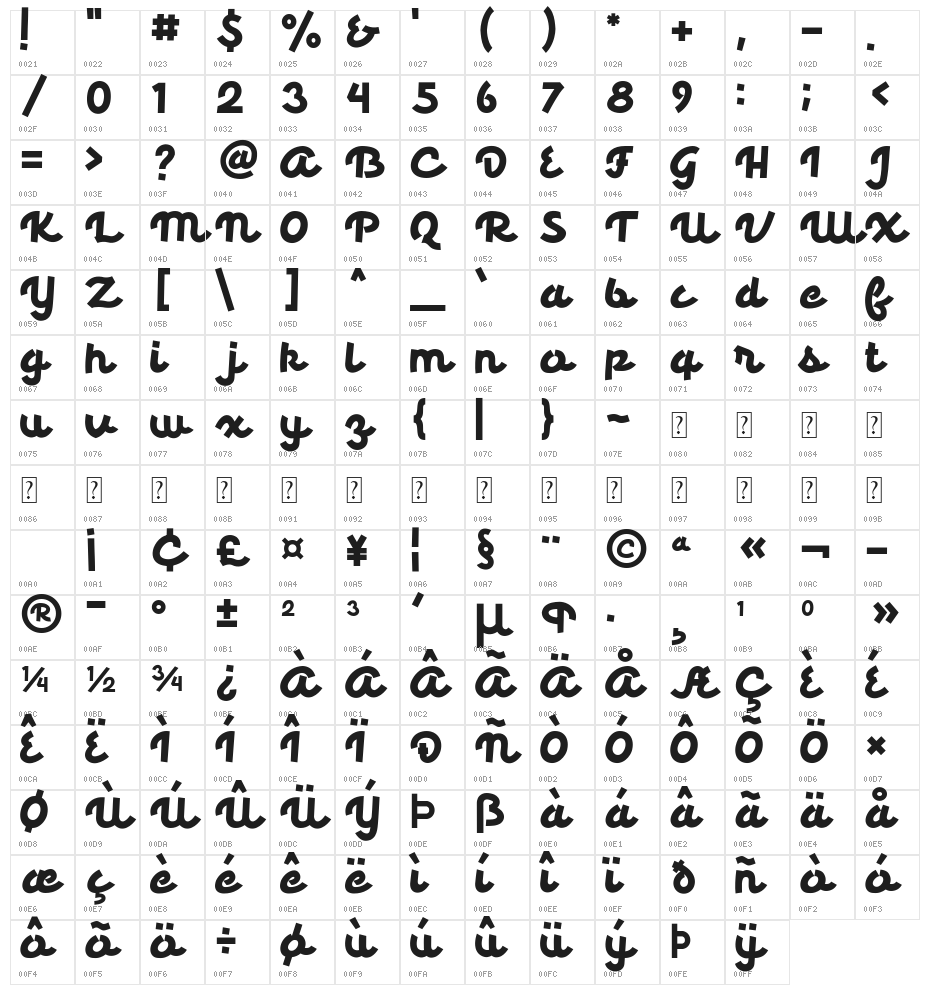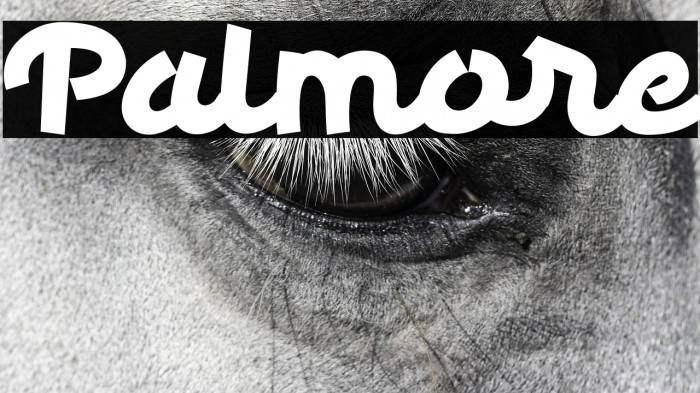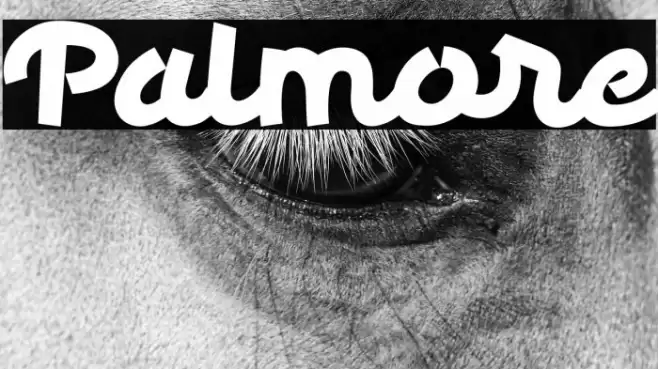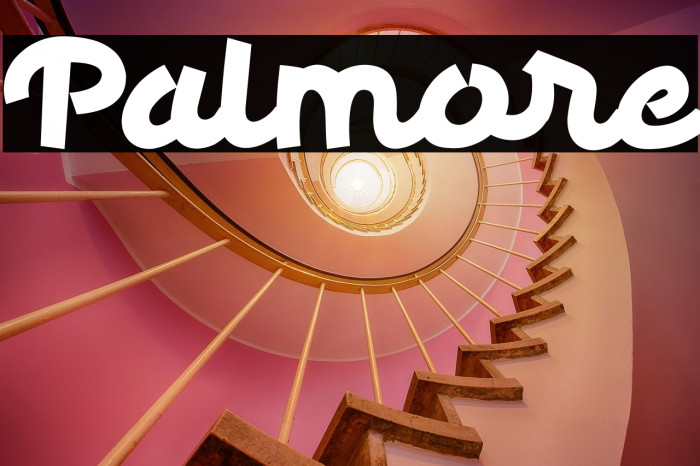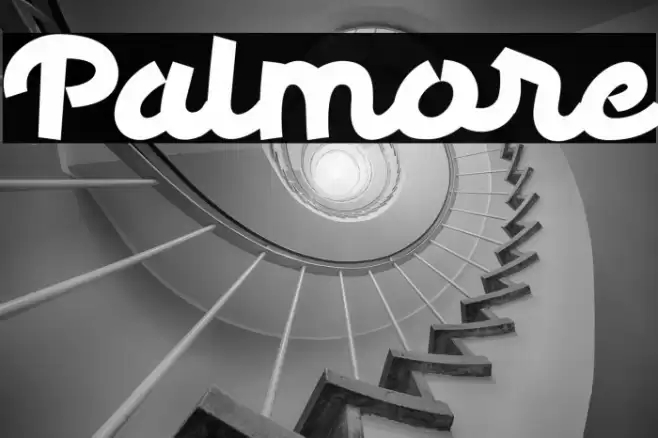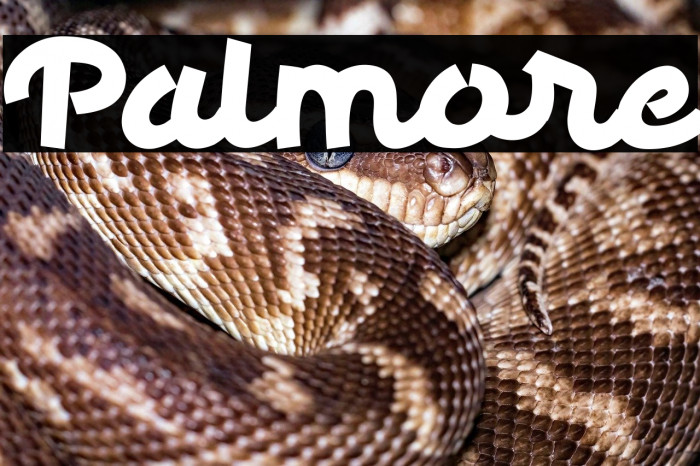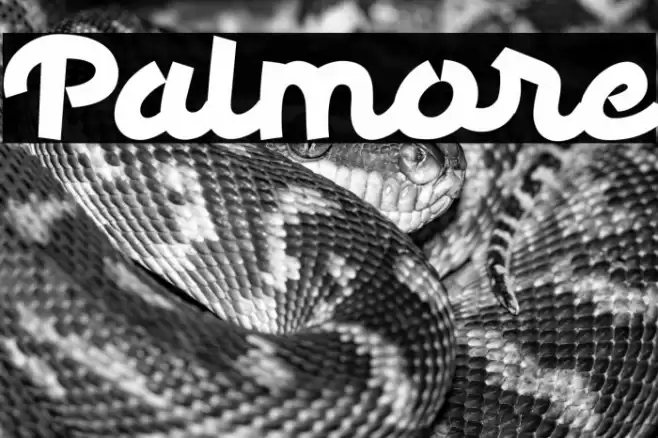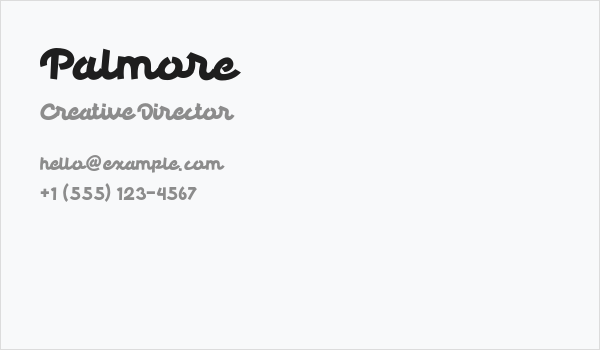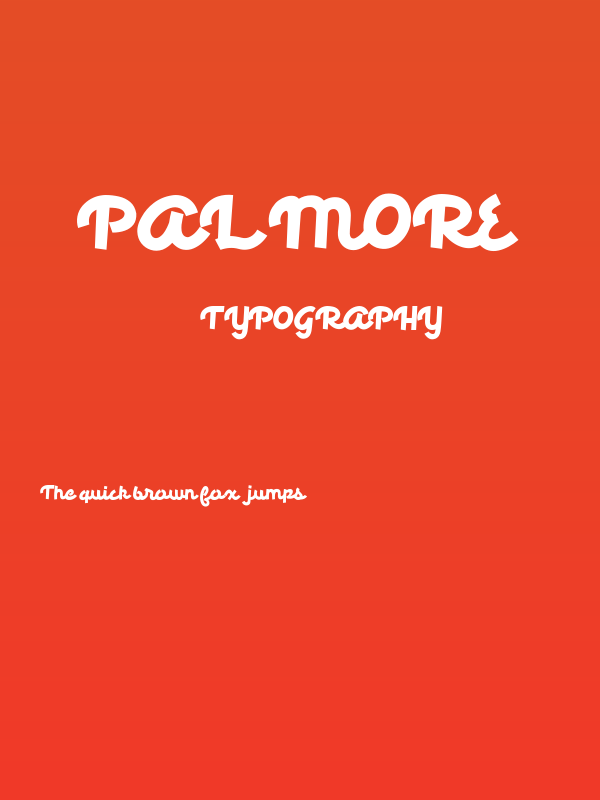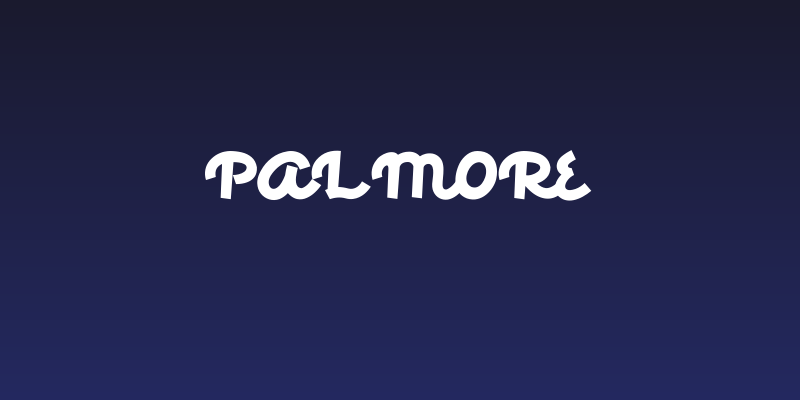
Palmore Font
Palmore Description
This font features a bold and playful script style with a strong, flowing character. The letters are interconnected, creating a sense of movement and fluidity. The uppercase letters maintain a consistent height, while the lowercase letters have a slight slant, adding to the dynamic appearance. The numbers are bold and rounded, complementing the overall style. Special characters are designed to match the playful and bold aesthetic, making them suitable for various creative applications.